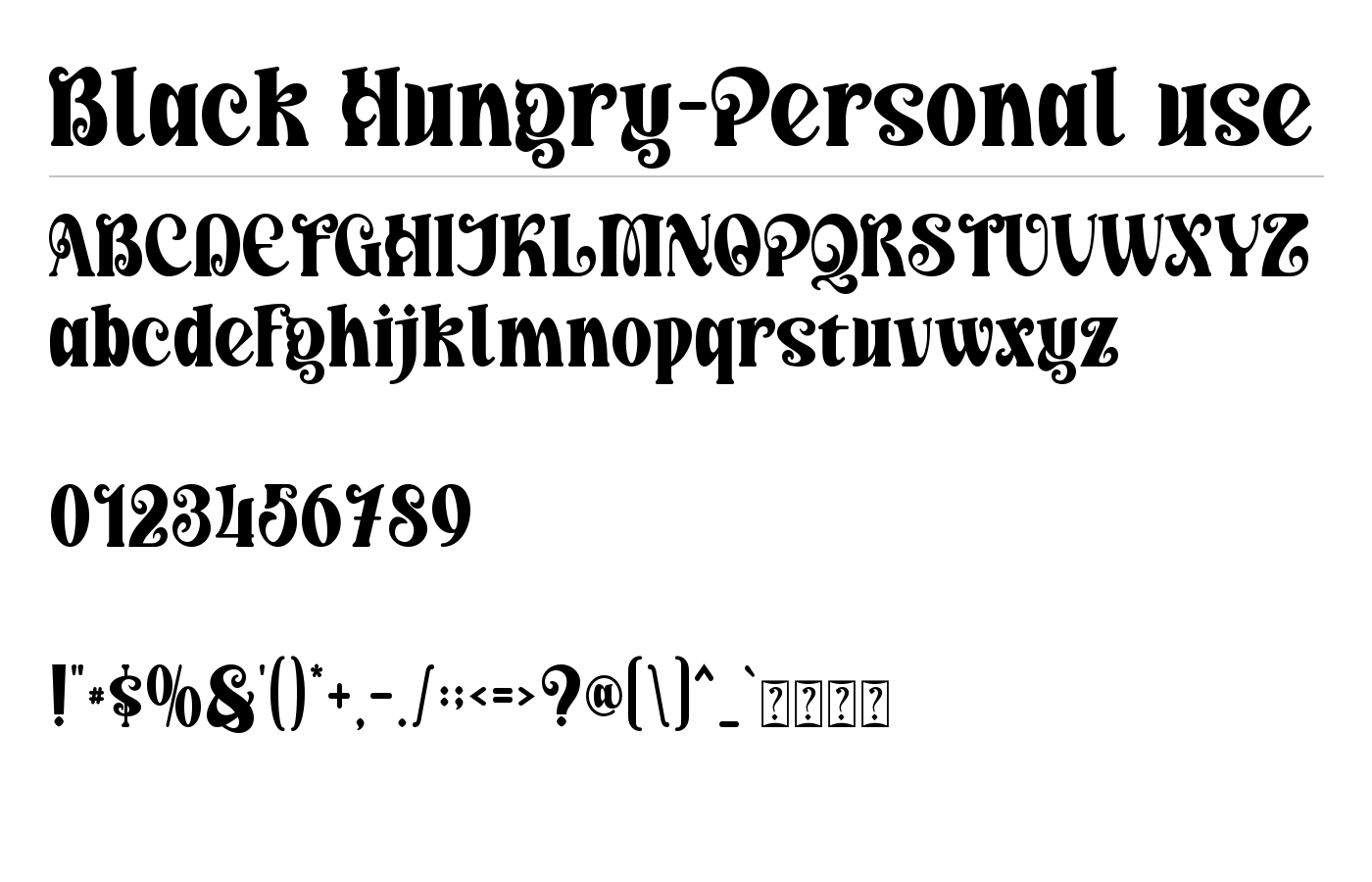
Black Hungry-Personal use is a bold, decorative serif font with a playful yet vintage character. Its thick, condensed letterforms feature unique swirls and flourishes on select characters, giving it a distinctive and eye-catching personality perfect for creative headlines, logos, or packaging that seek a quirky, retro vibe. This font works best in display settings where its strong presence and ornamental details can shine.
Black Hungry-Personal use Font
About Black Hungry-Personal use Font
| Font family | Black Hungry-Personal use Font |
| Designer | Letterara |